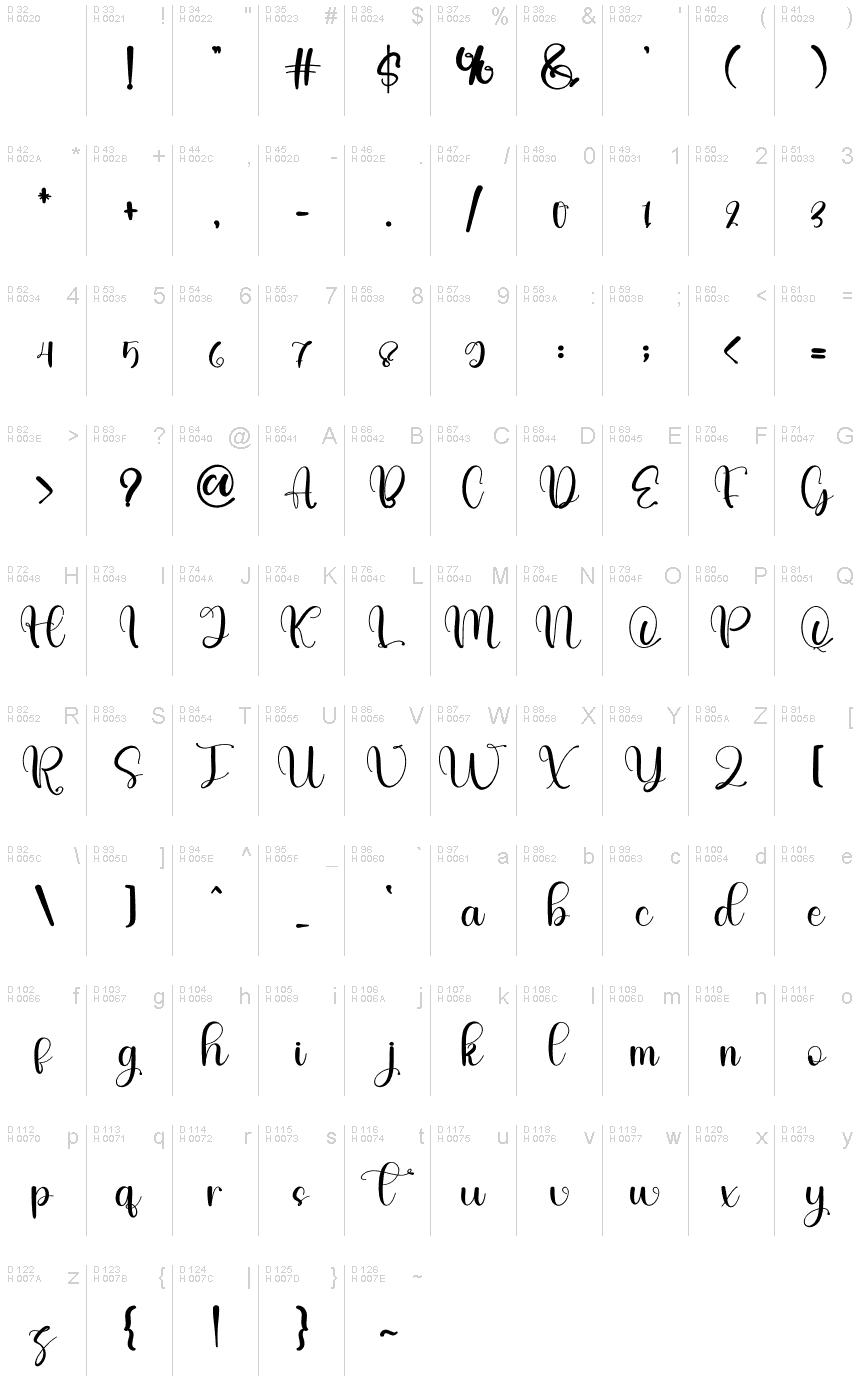
Rain And Beach
Rain and Beach, a graceful calligraphy font by FreshtypeINK, captures the essence of handwritten elegance with a semi-light touch. Its fluidity mirrors the gentle fall of rain and the soft curves resemble the undulating waves at the beach, thus living up to its evocative name. The organic flow of its characters adds a personal and intimate feel to any project it graces.
The font's aesthetic appeal lies in its balanced contrast between sweeping ascenders and descenders, which gives it a dynamic rhythm reminiscent of classical calligraphy while maintaining modern sensibilities. The semi-light weight lends itself to an airy, delicate presence on the page that doesn't overpower but rather enhances the visual harmony.
Rain and Beach is an ideal choice for designers seeking to infuse their work with a touch of sophistication. Whether it's wedding invitations, branding materials, or literary editorial designs, this font's subtle allure ensures that it can adapt beautifully across various creative domains while adding an artisanal charm to each undertaking.